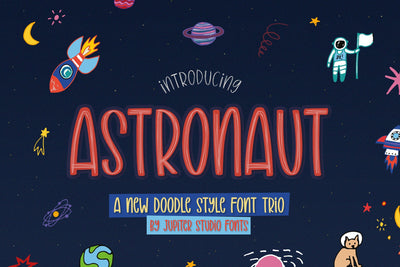
Astronaut Font (Cute Fonts, Kids Fonts, Craft Fonts, Cricut Fonts)
Looking for Cute Fonts, Kids Fonts, Craft Fonts, Cricut Fonts? Introducing the wonderful Astronaut Font.